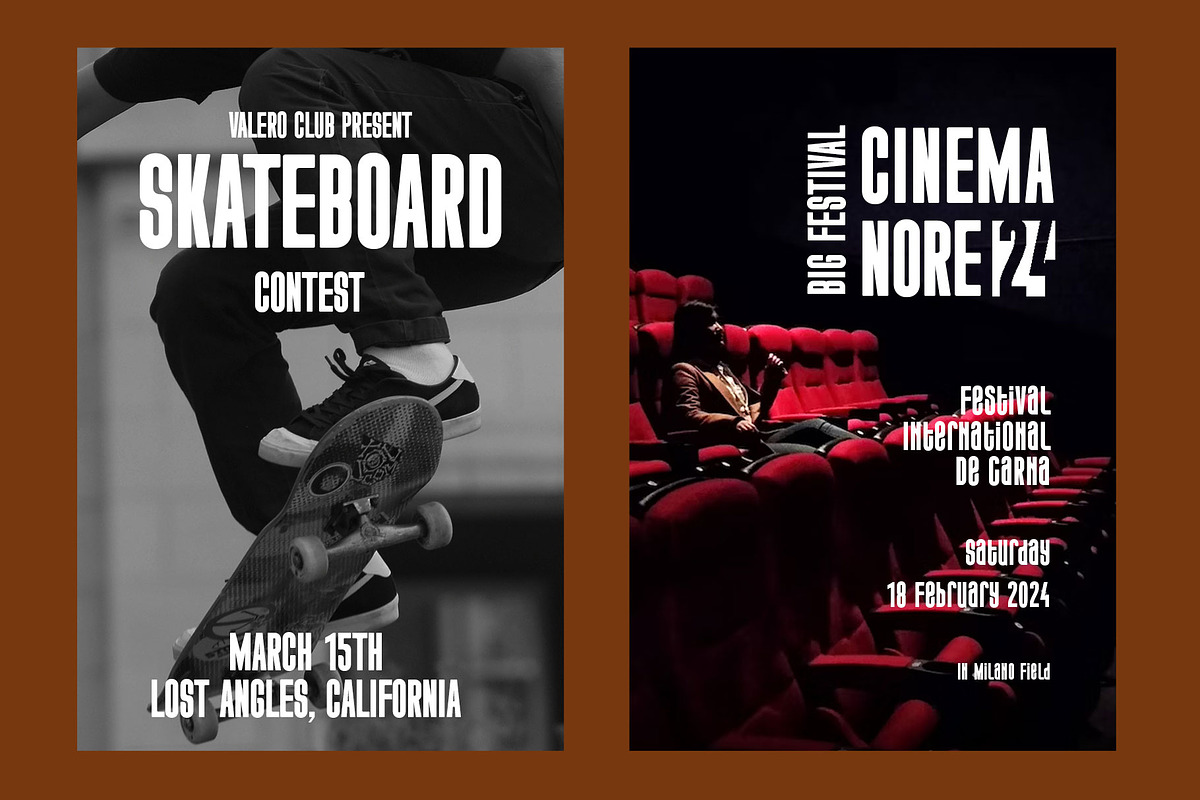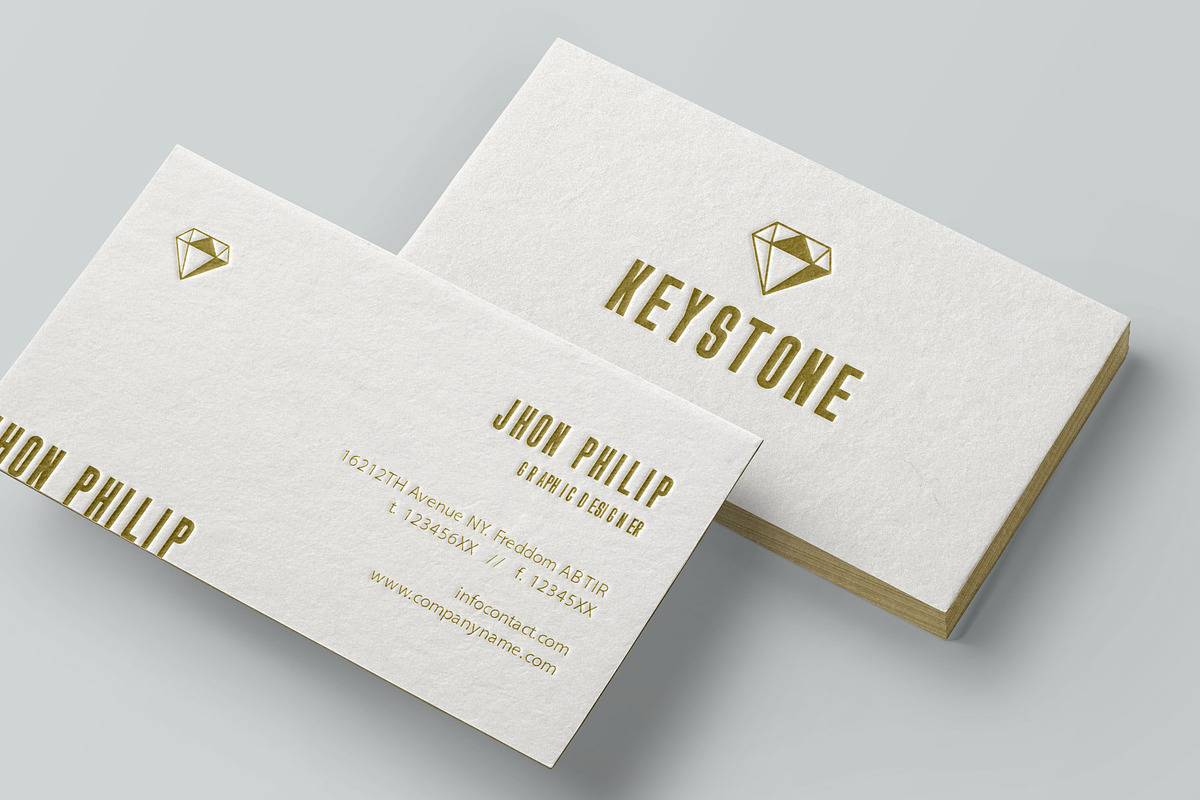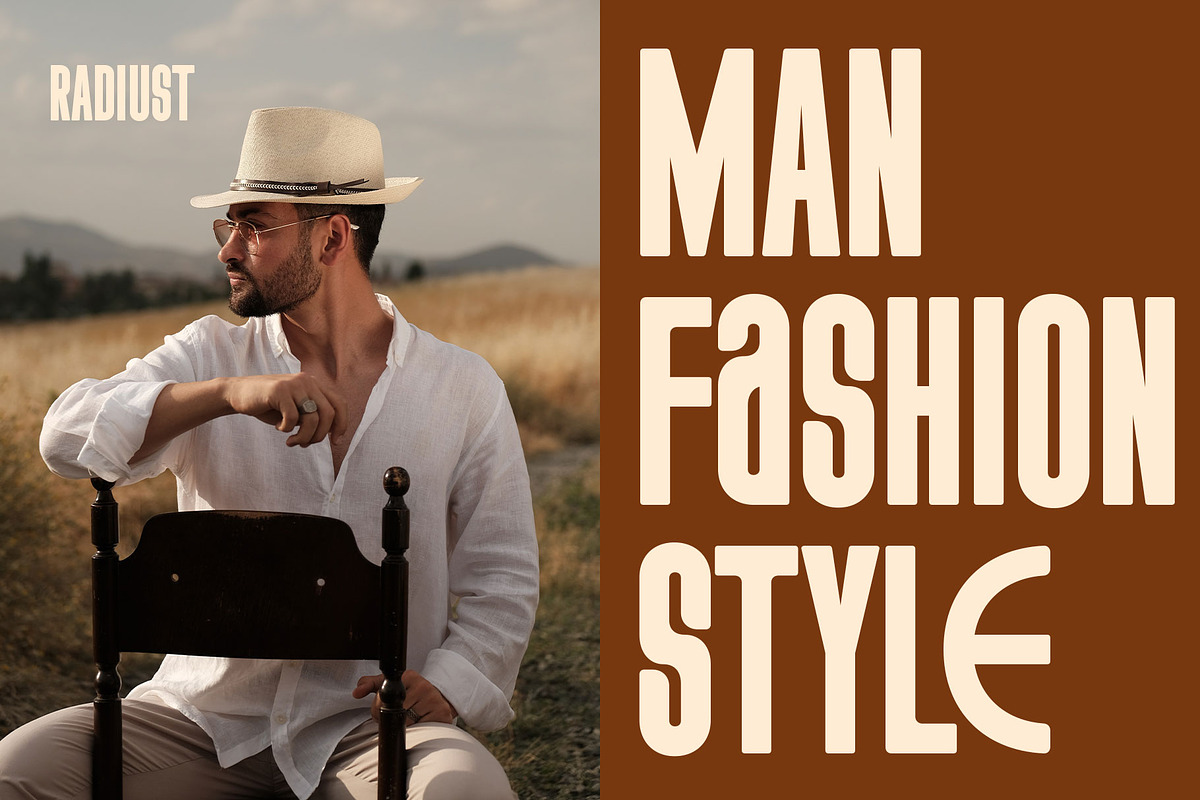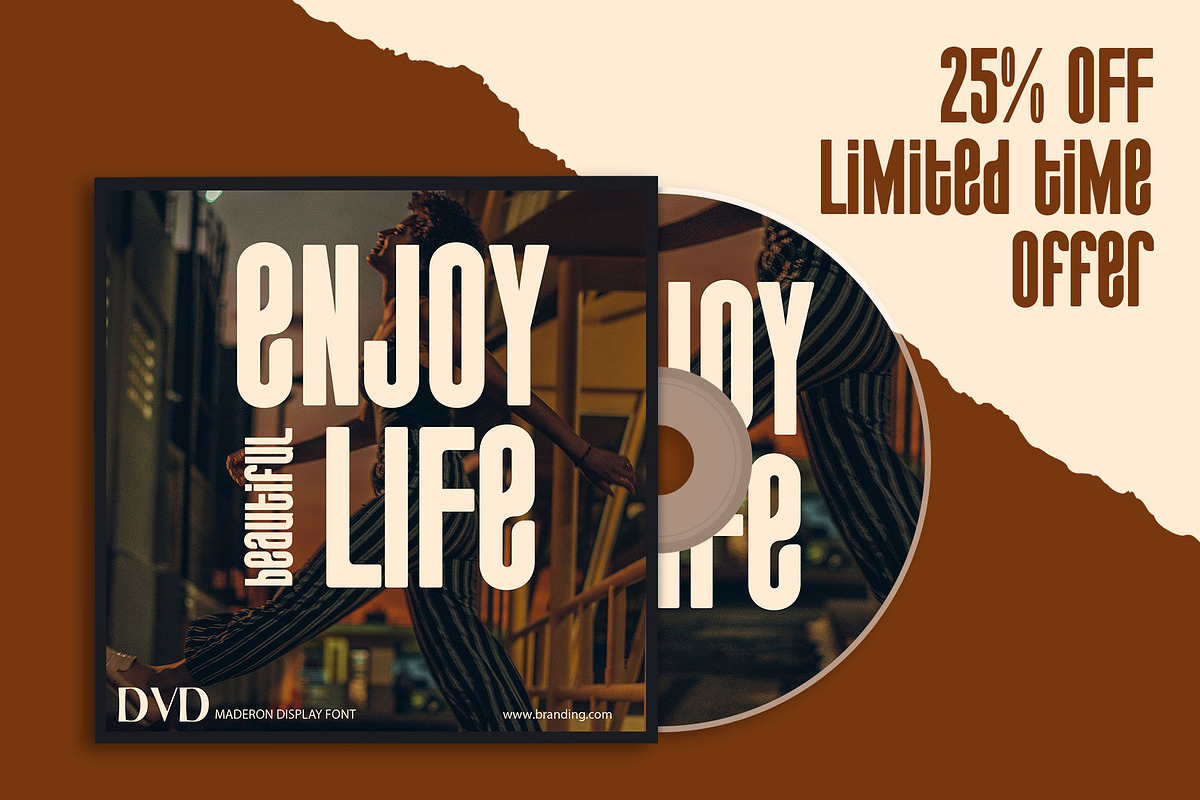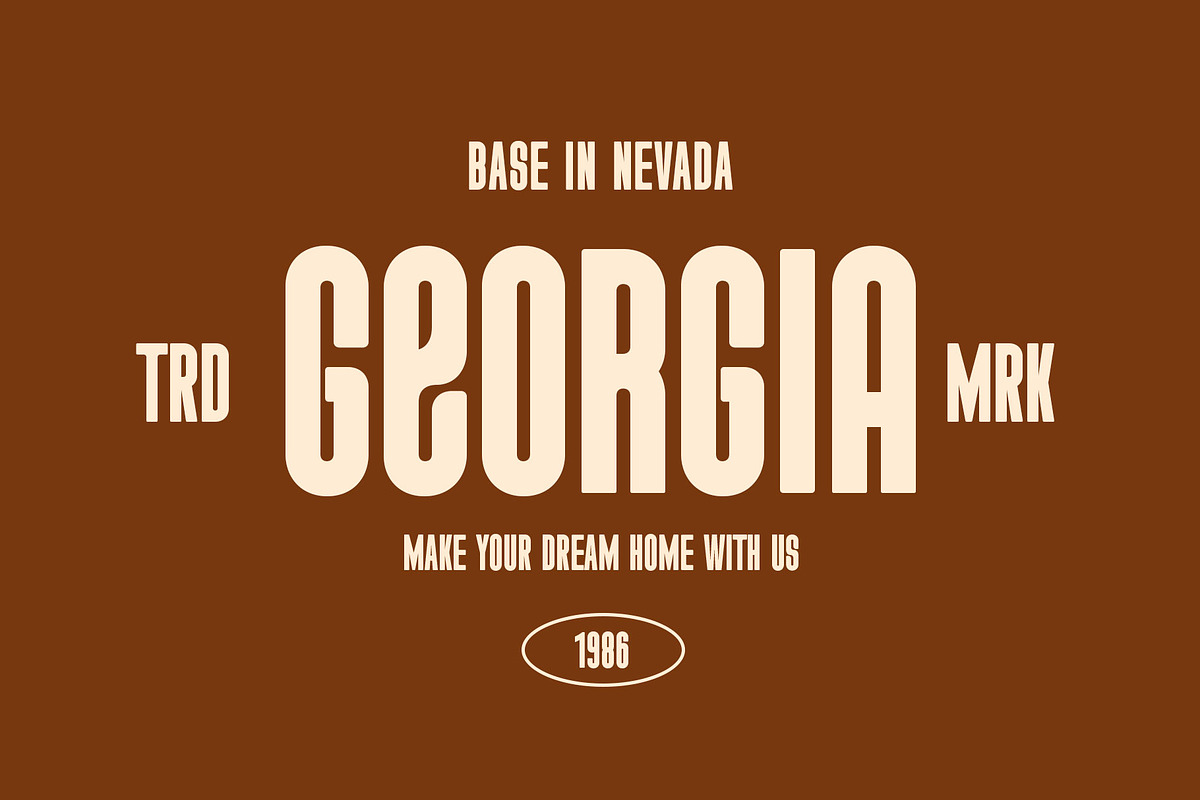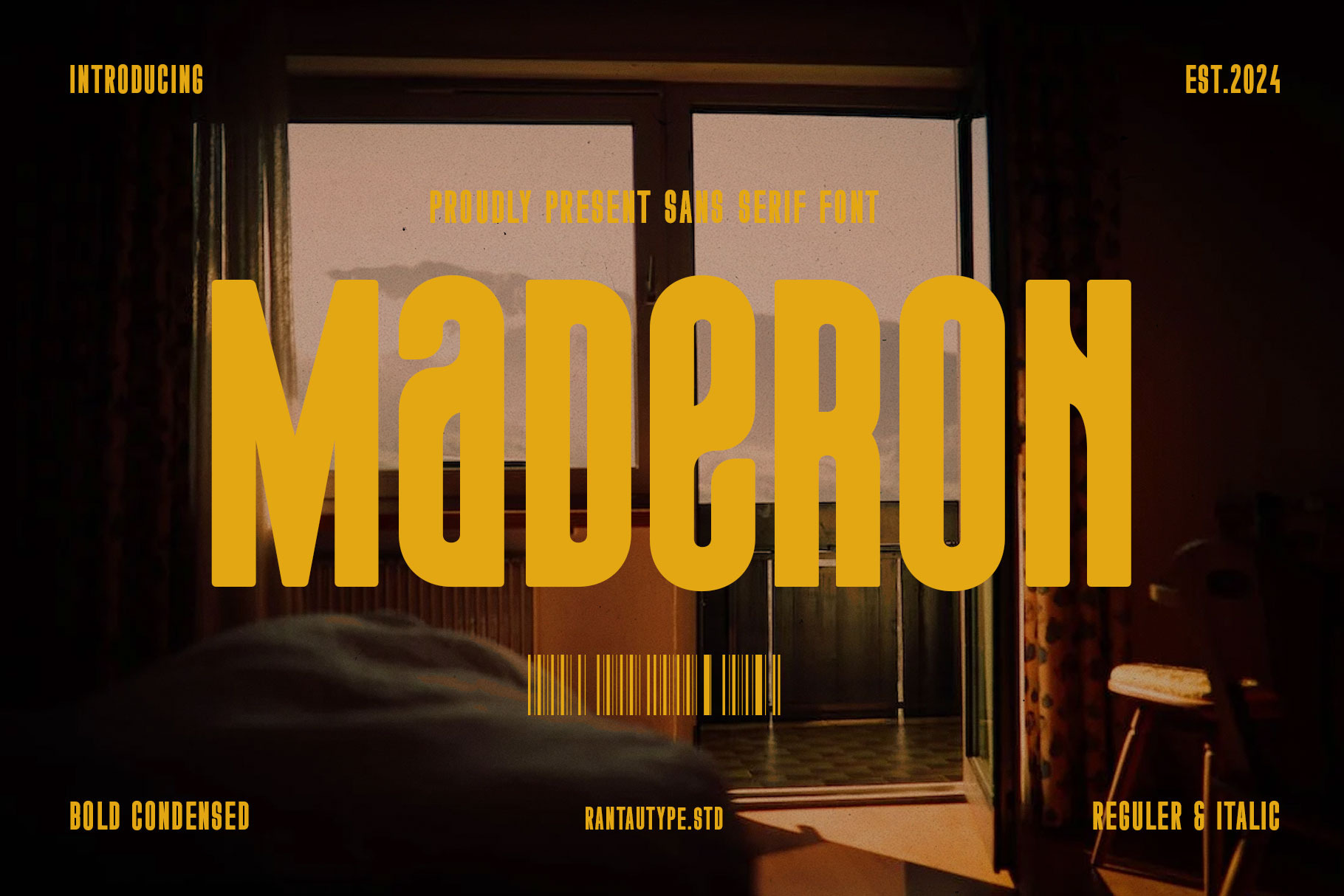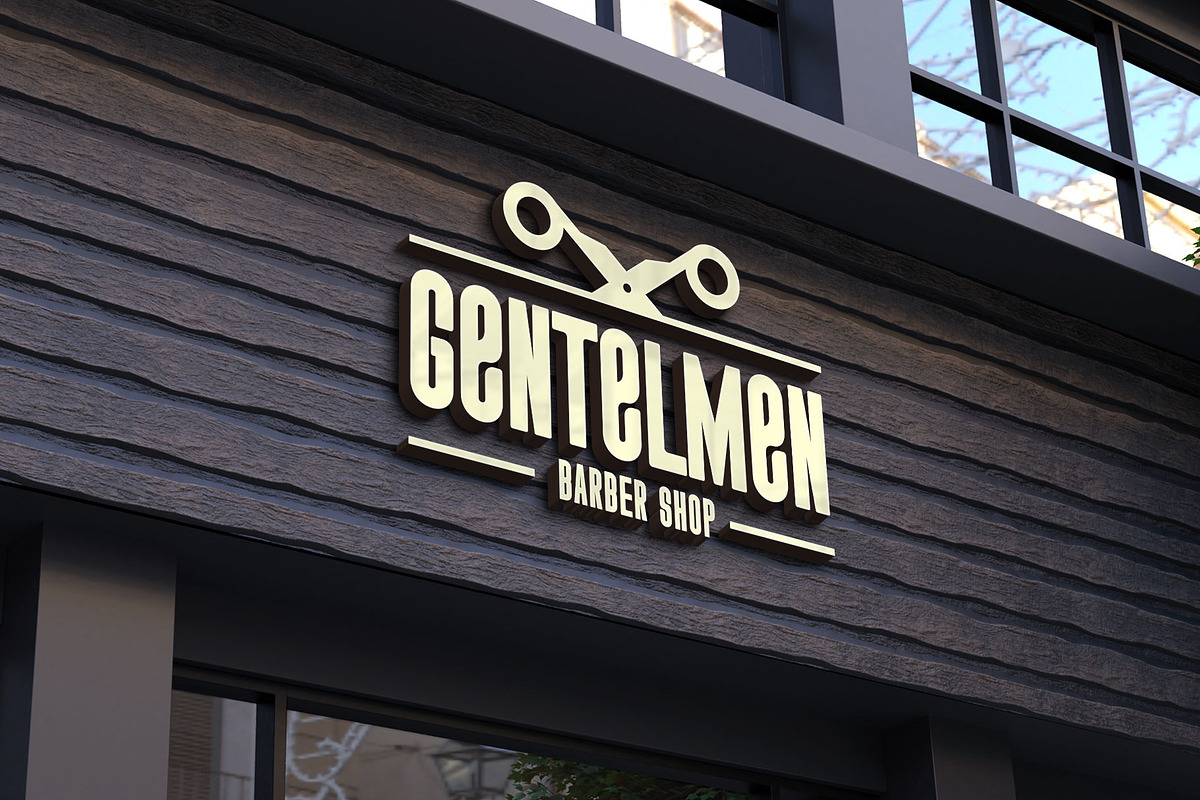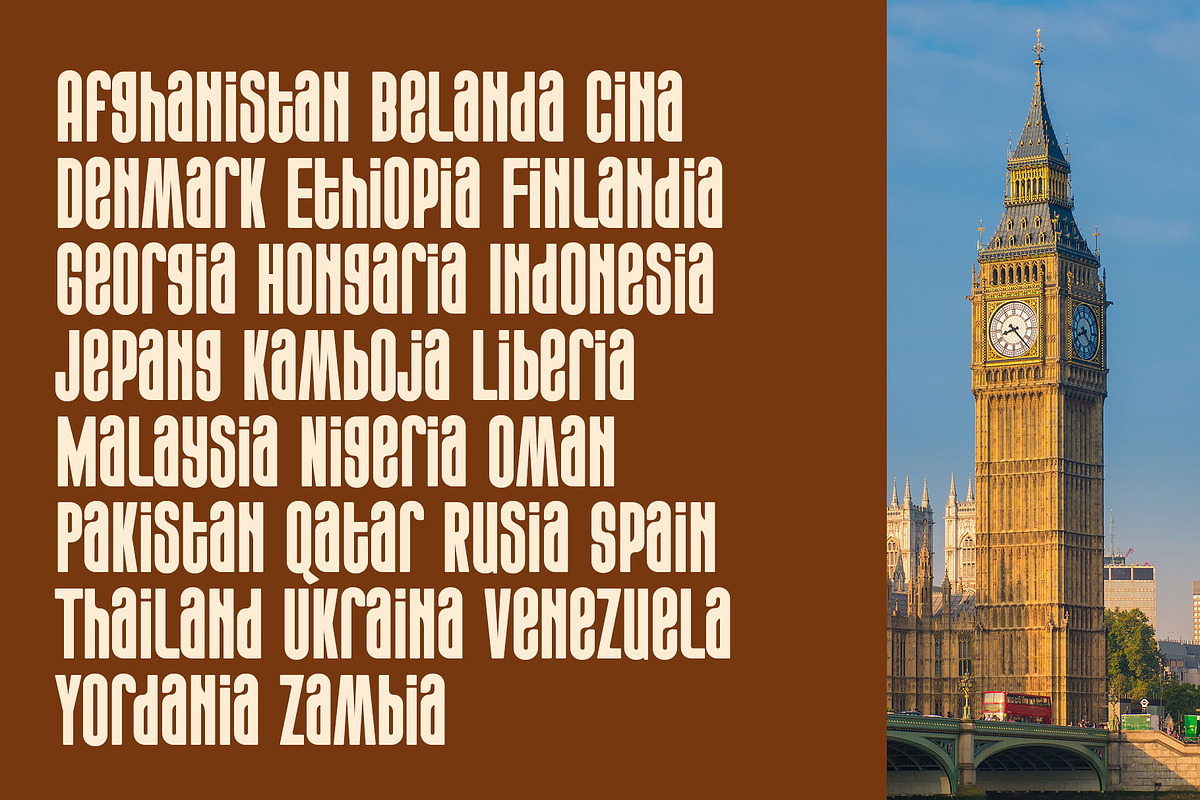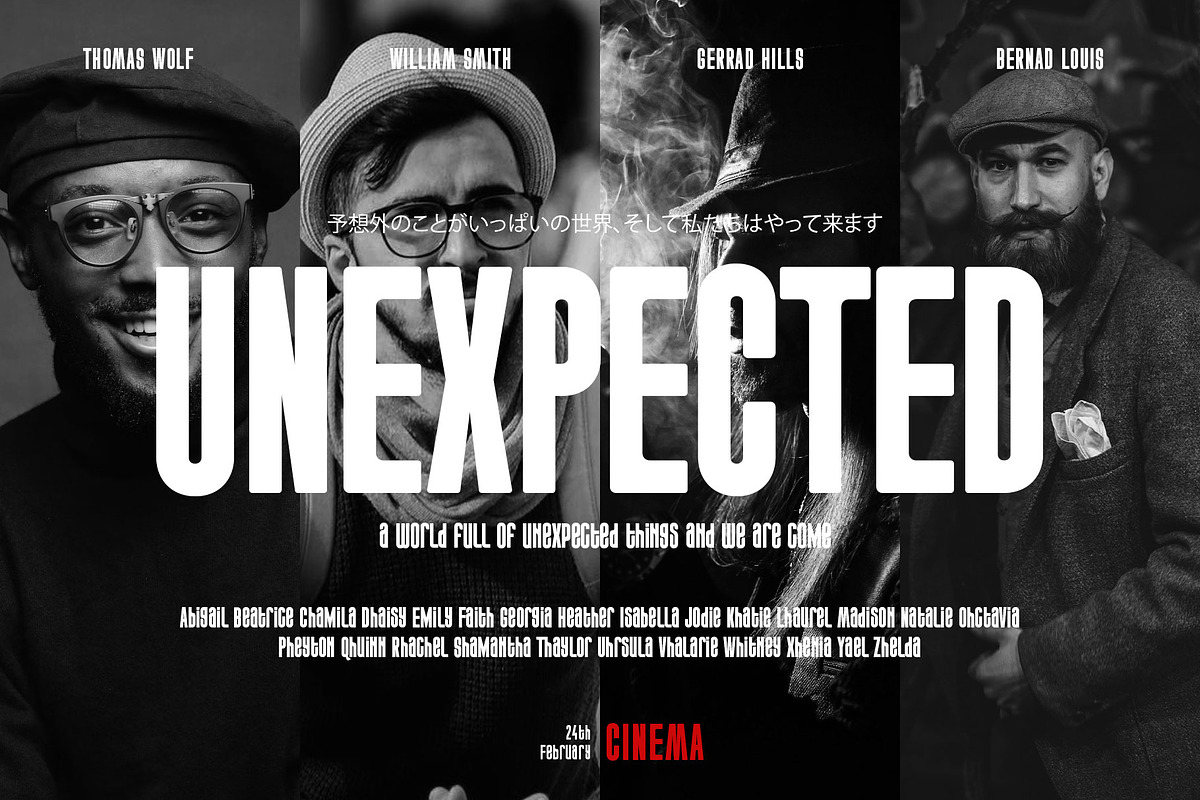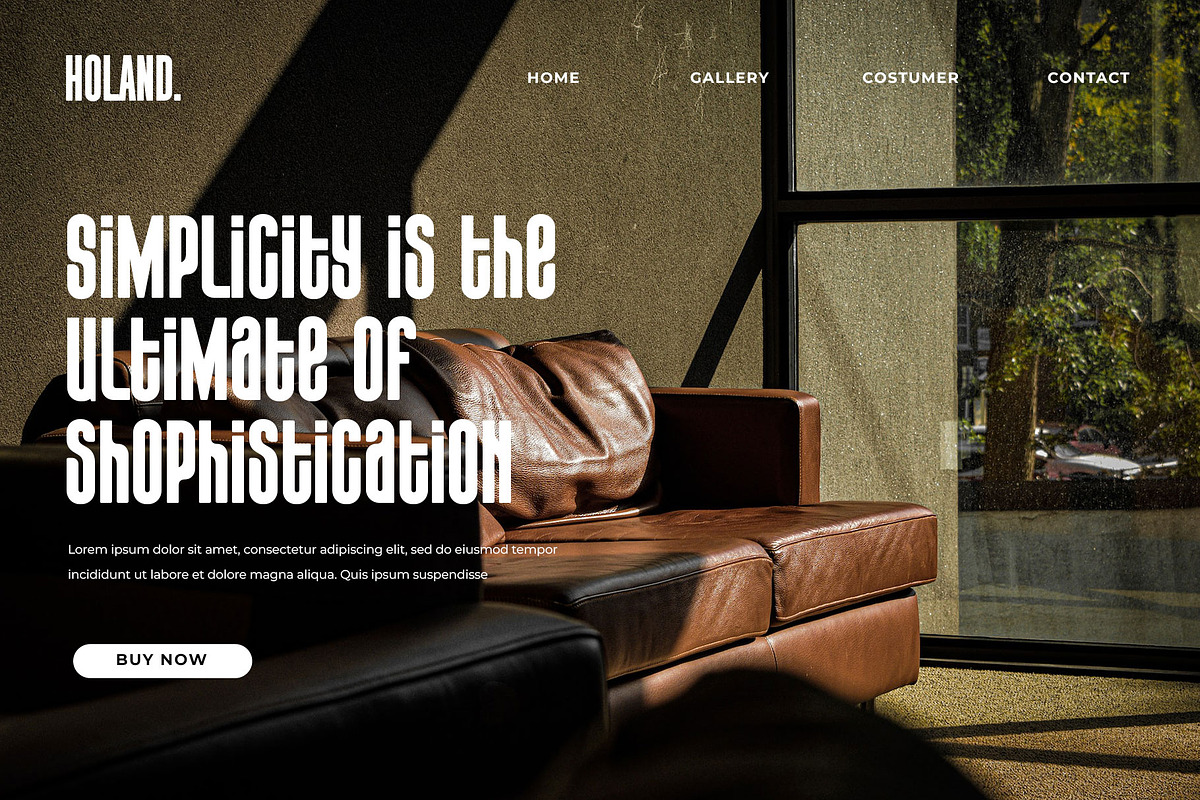
Maderon Bold Condensed Font
Hi Ladies and Gentleman ! Proudly present bold condensed Font call Maderon , by rantautype.
Maderon is a bold condensed rounded display font with retro vibe. Gotens is a sophisticated shape with distinctive shapes into a display fonts way to make it legible for contemporary use. Unique in this font is the lowercase is made the same height as the uppercase. so you can mix and max to create beautiful designs. Maderon come with alternate, ligature and mulilingual support.
Gotens is a beautiful choice for any creative endeavor, retro or vintage design, lifestyle design such as logos, title, cover, branding, display, business card, magazine, poster, film/movie and more. Now you using Maderon to elevate you design or branding.